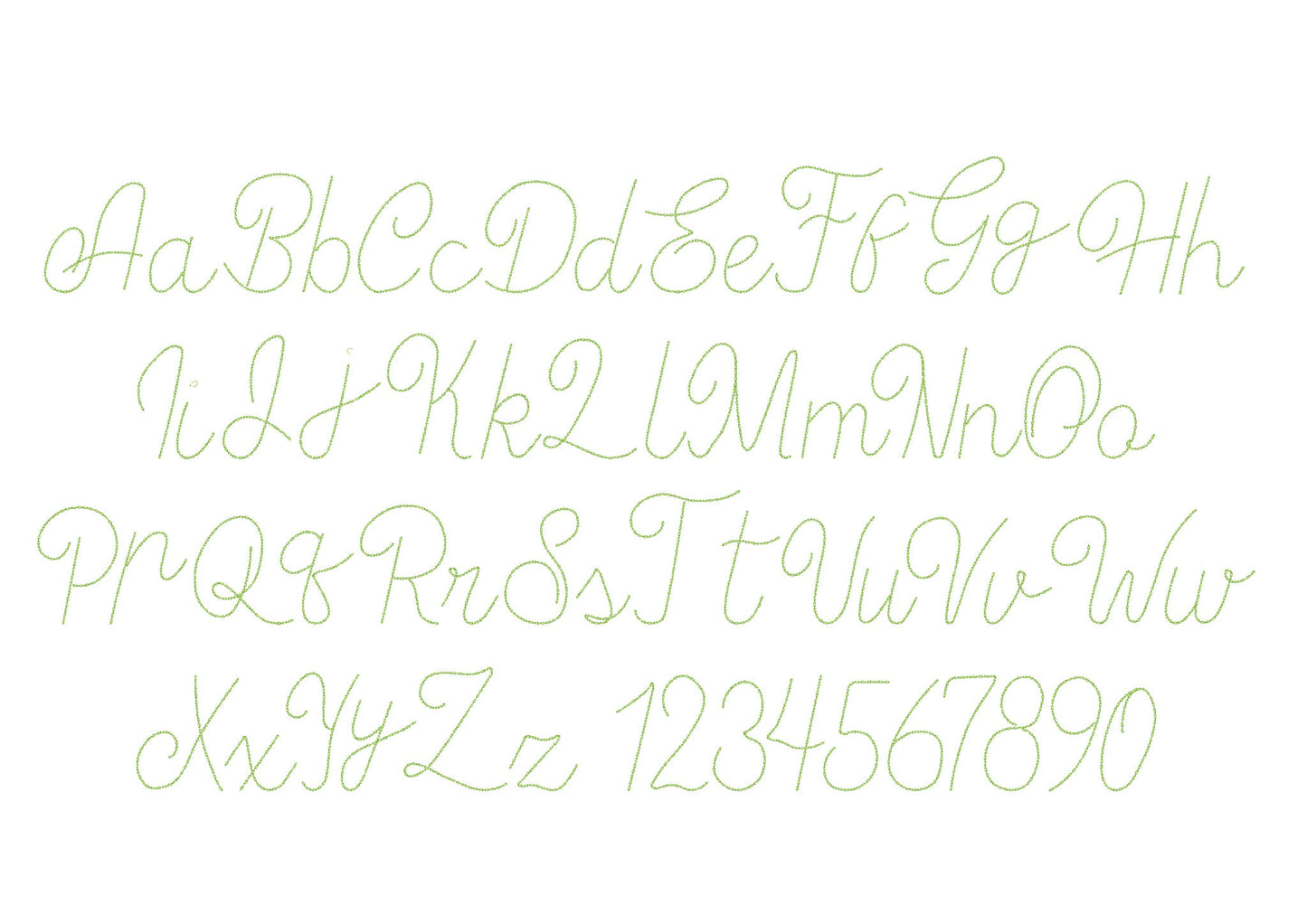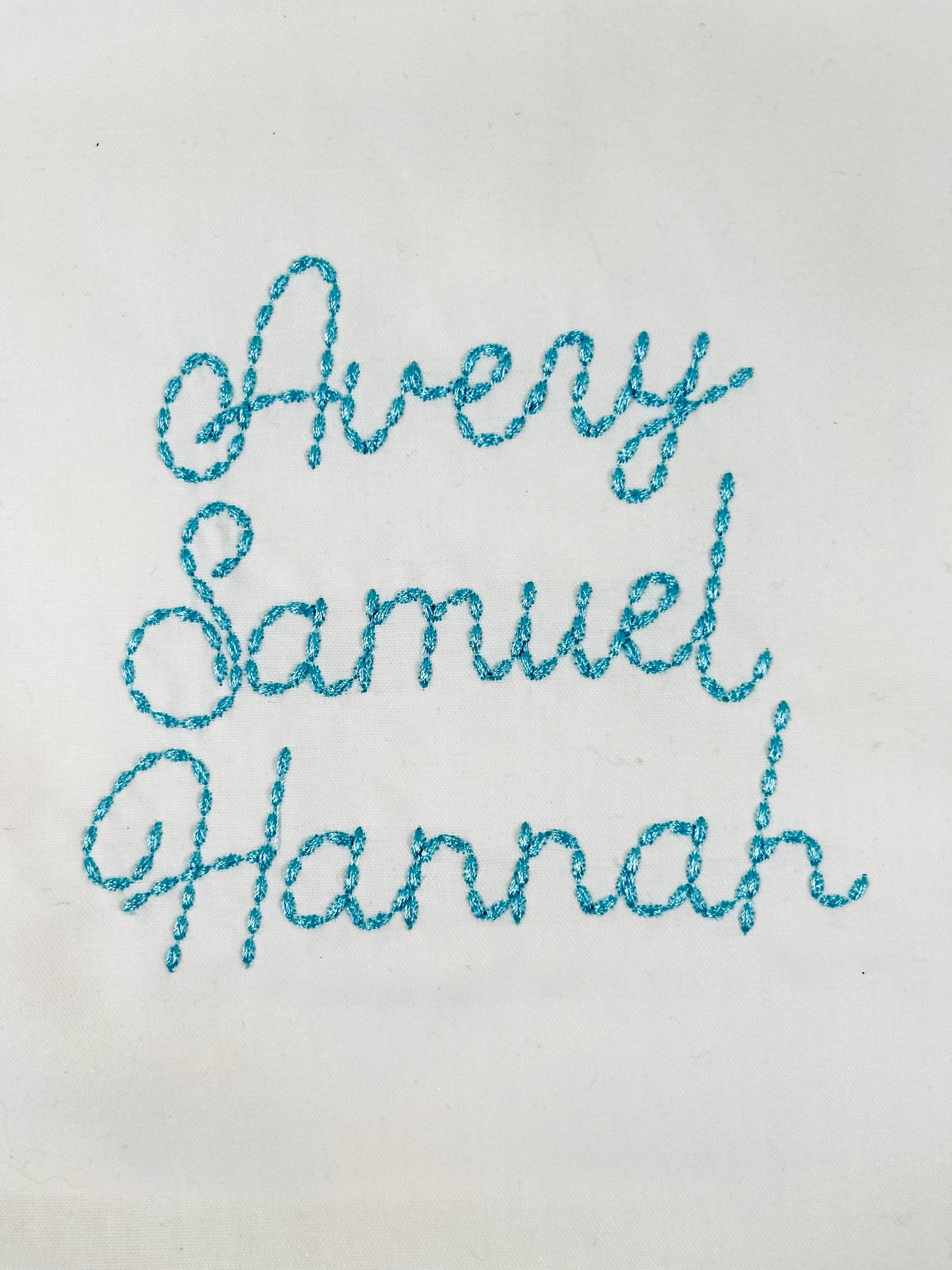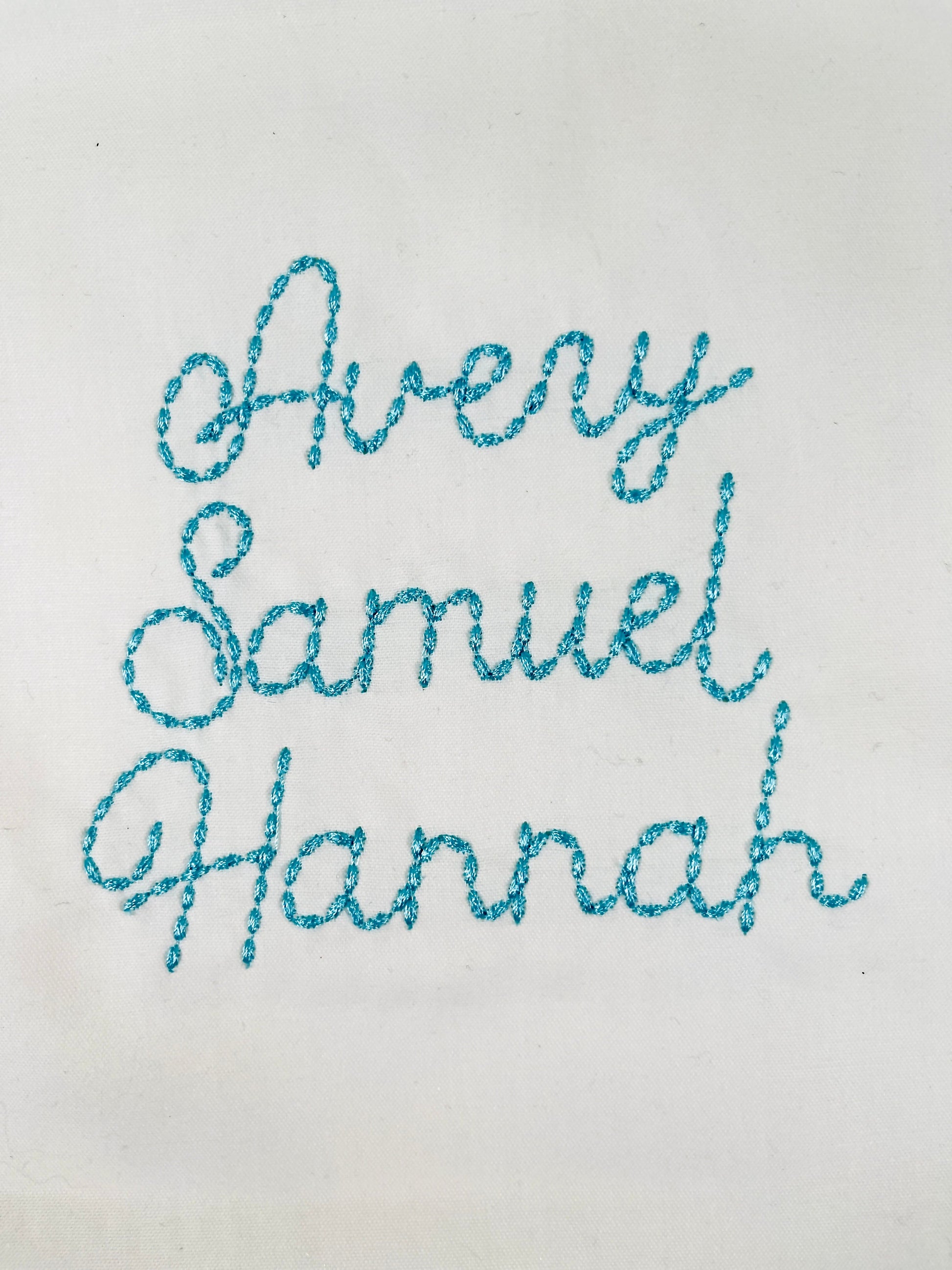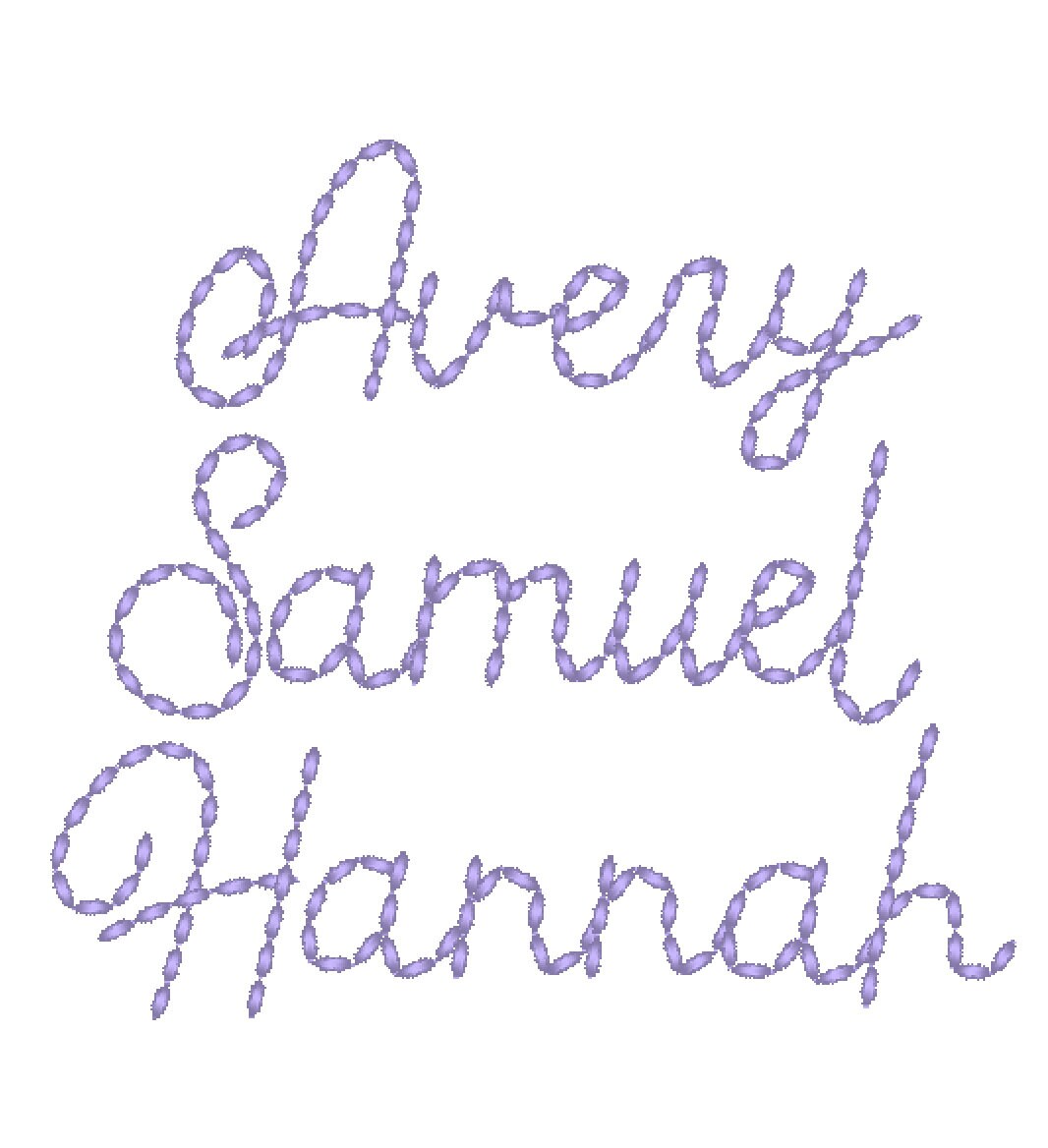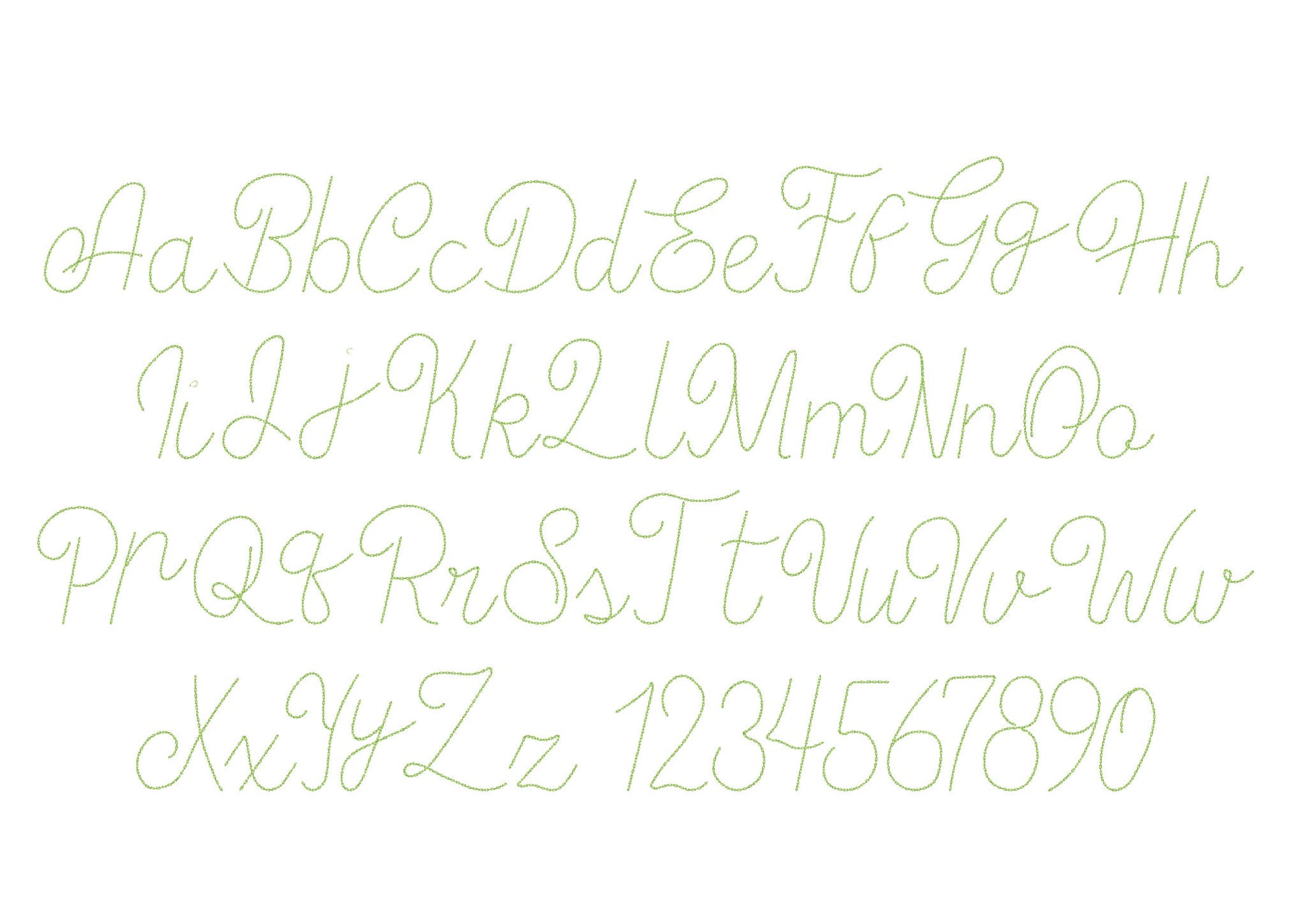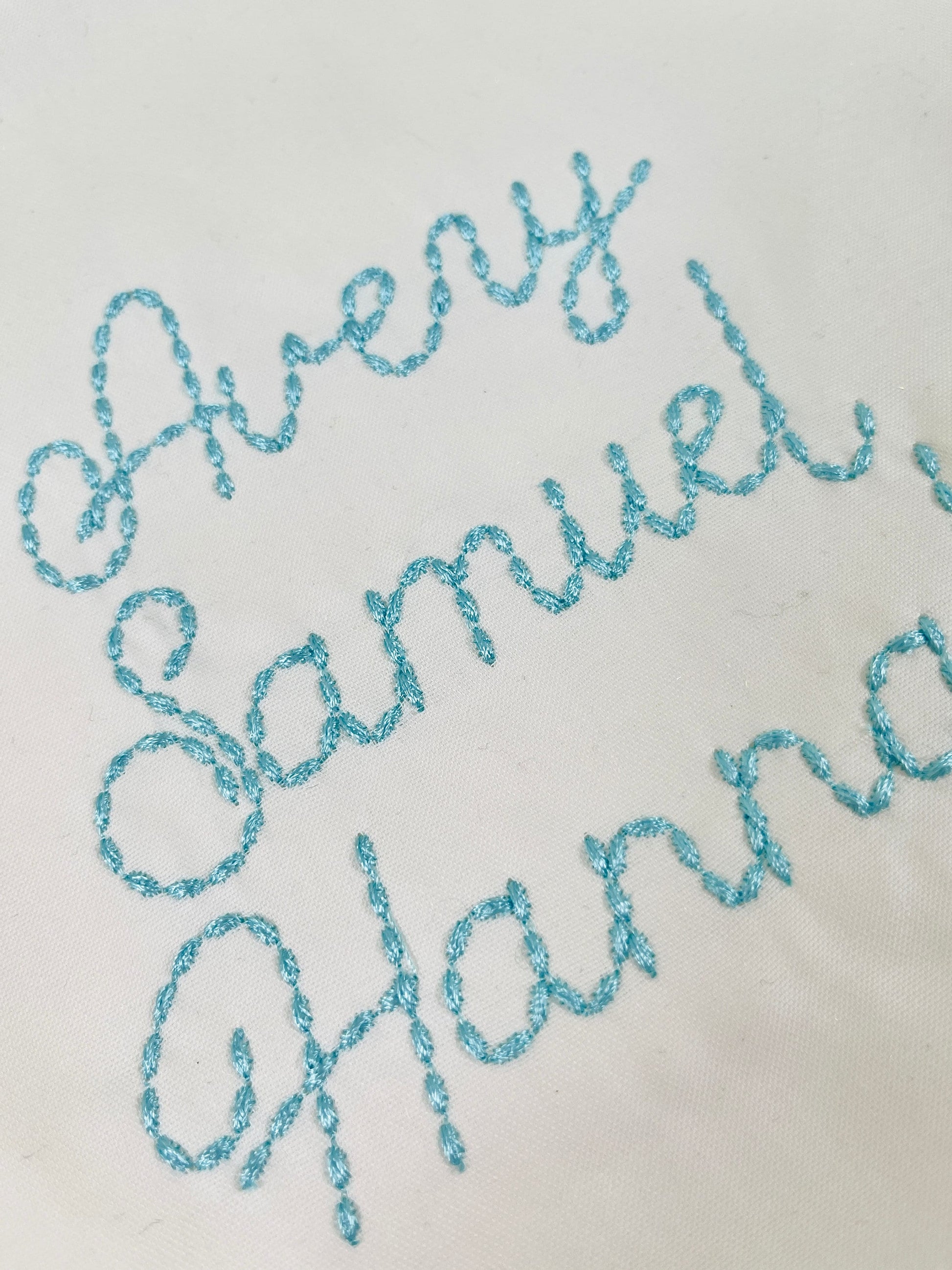
Classic Hand Stitch Effect Script Font
Included: Uppercase A-Z, Lowercase a-z, Numbers 0-9, Punctuation
A classic script font with a hand-stitched seed stitch look. Made for kids' names, necklines, shirts and small gifts.
Uppercase and lowercase letters, numbers 0 to 9 and punctuation. Eight sizes: 1, 1.3, 1.6, 2, 2.5, 3, 3.7 and 4.4 inches.
• Hand stitch effect script font
• Uppercase, lowercase, numbers 0 to 9, punctuation
• 8 sizes, 1 to 4.4 in